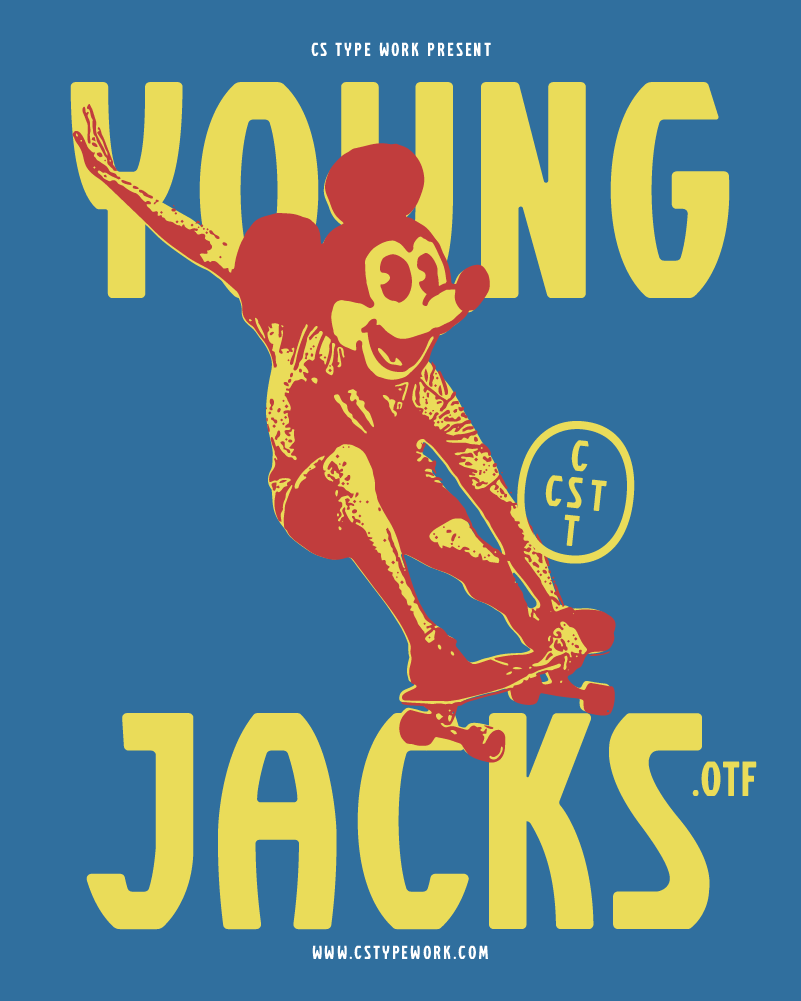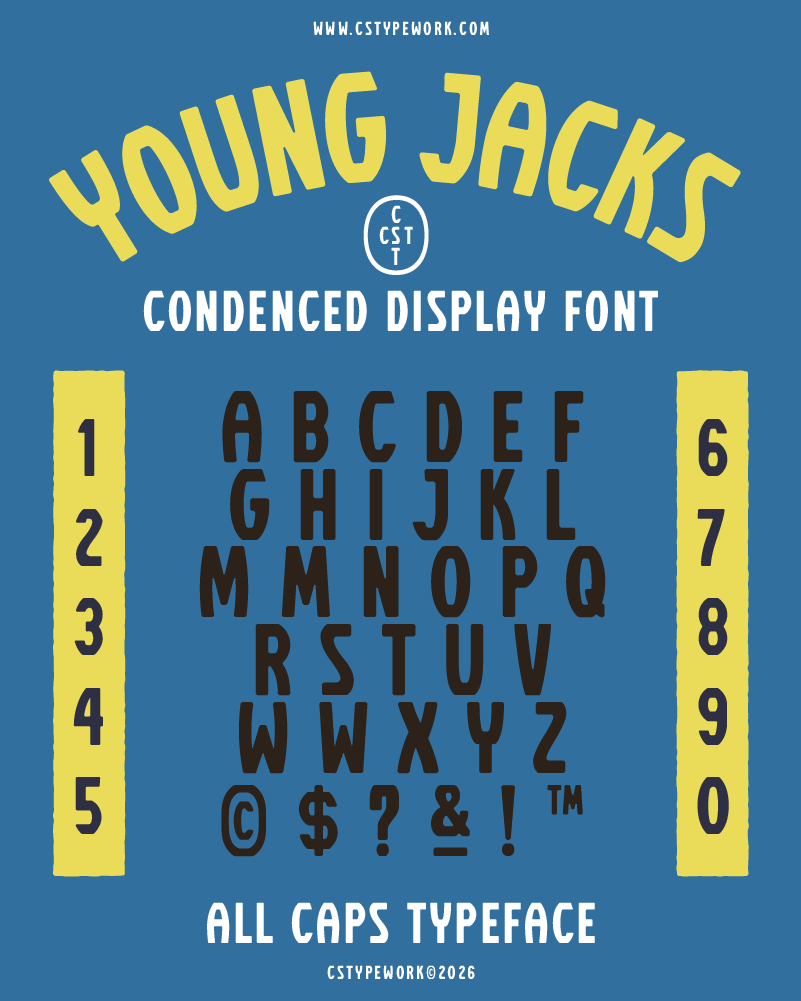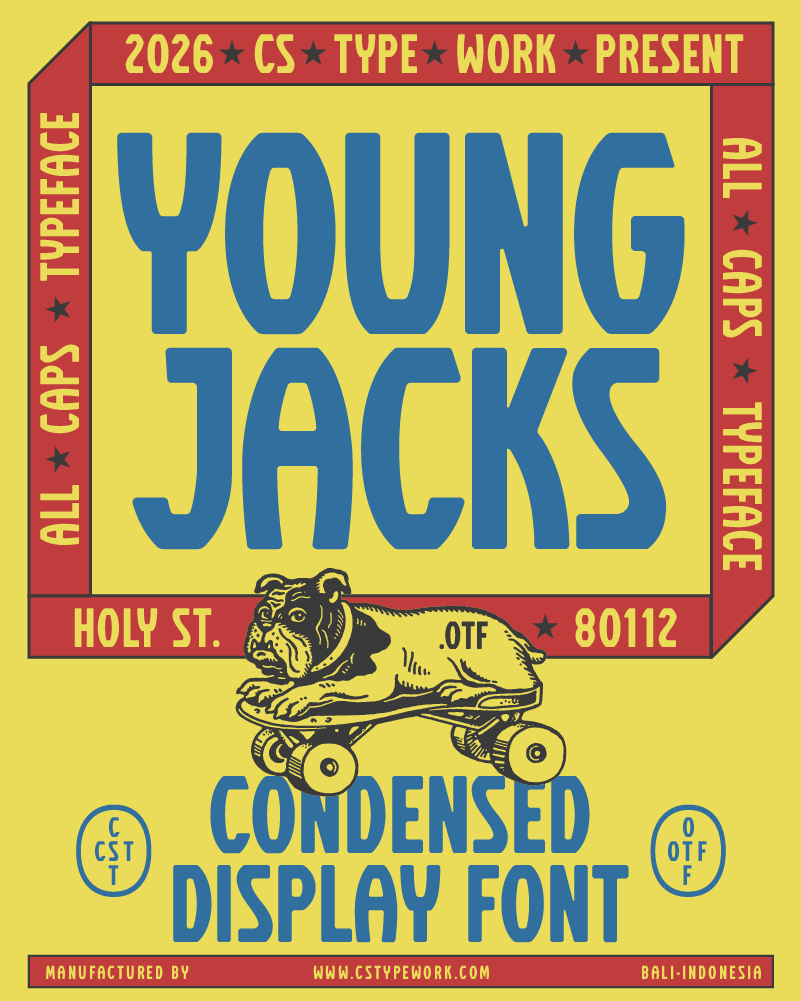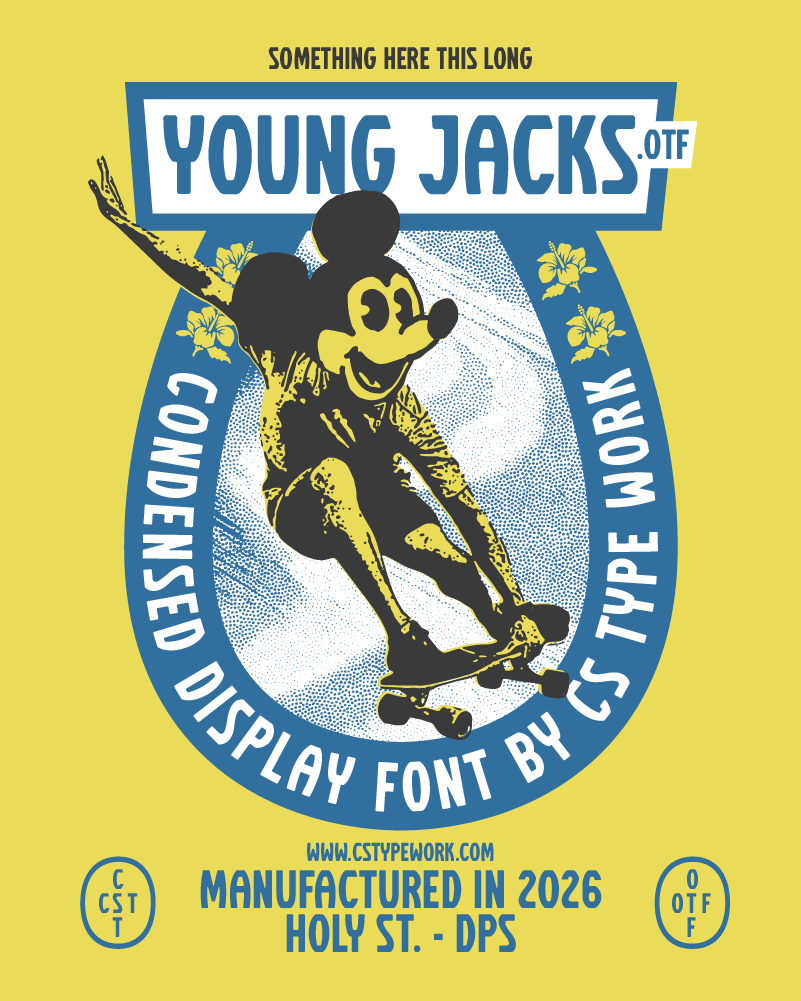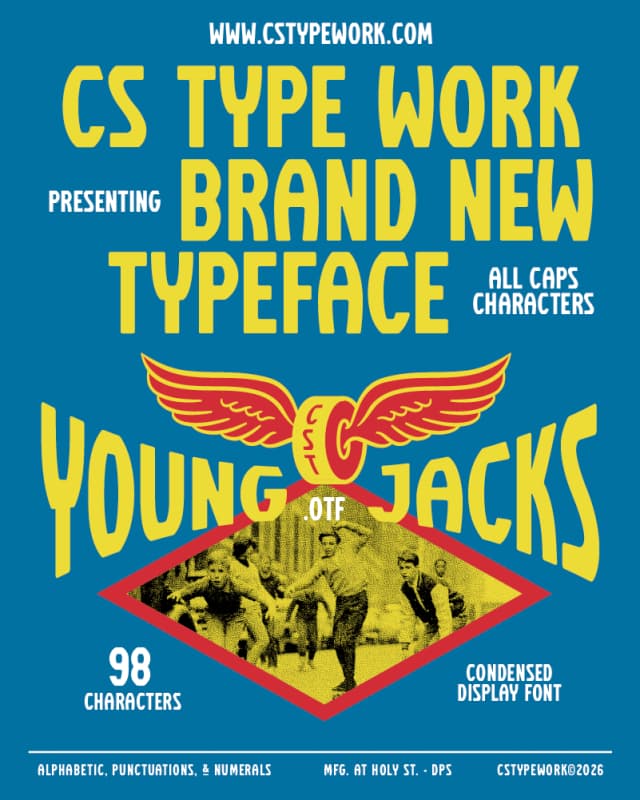
YOUNG JACKS CST
YOUNG JACKS CST is a condensed display typeface inspired by the spirit of vintage sports culture—back when movement was everything and style lived on the streets, the waves, and the pavement.
From skate decks to surf stickers, team jerseys to old sports posters, YOUNG JACKS CST captures that youthful energy where everything feels fast, bold, and a little rebellious.
Great for sports-inspired branding, apparel graphics, posters, badges, and headlines that need motion and swagger.
For designers who like their typography energetic, fearless, and ready to move.
YOUNG JACKS CST keeps your type in motion.